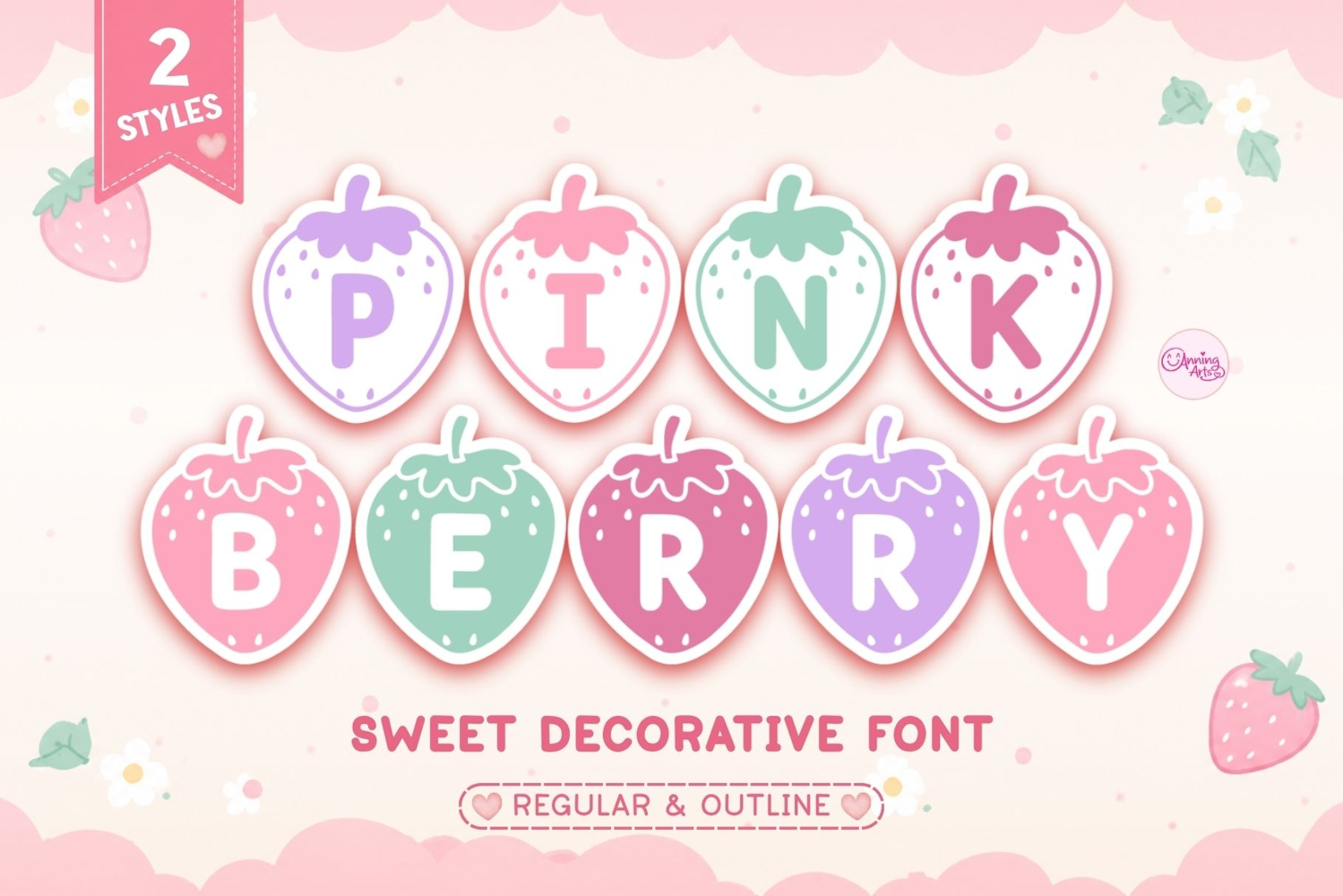
Pink Berry Font is a cute strawberry-inspired decorative font bundle featuring both Regular and Outline styles. Perfect for Cricut projects, sublimation, shirts, mugs, tote bags, stickers, classroom crafts, invitations, kids products, and creative designs. This playful fruit font includes uppercase letters and numbers with adorable berry-themed characters.